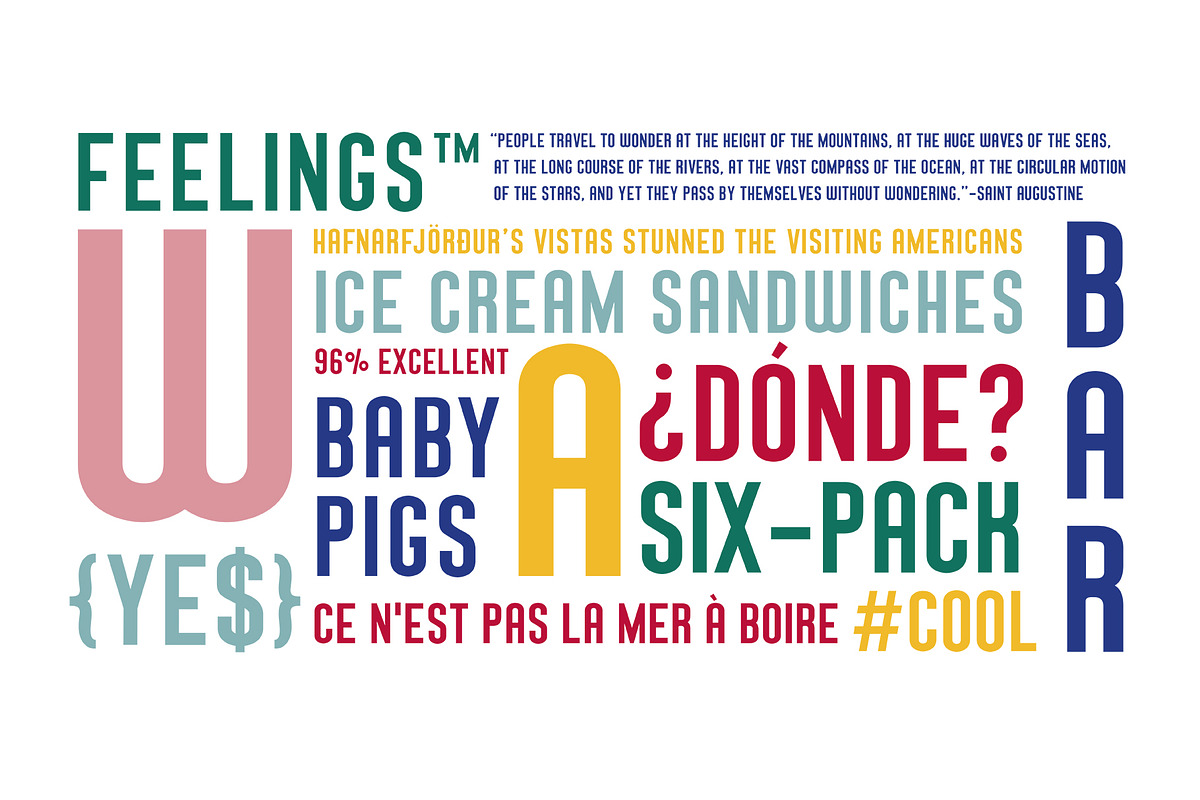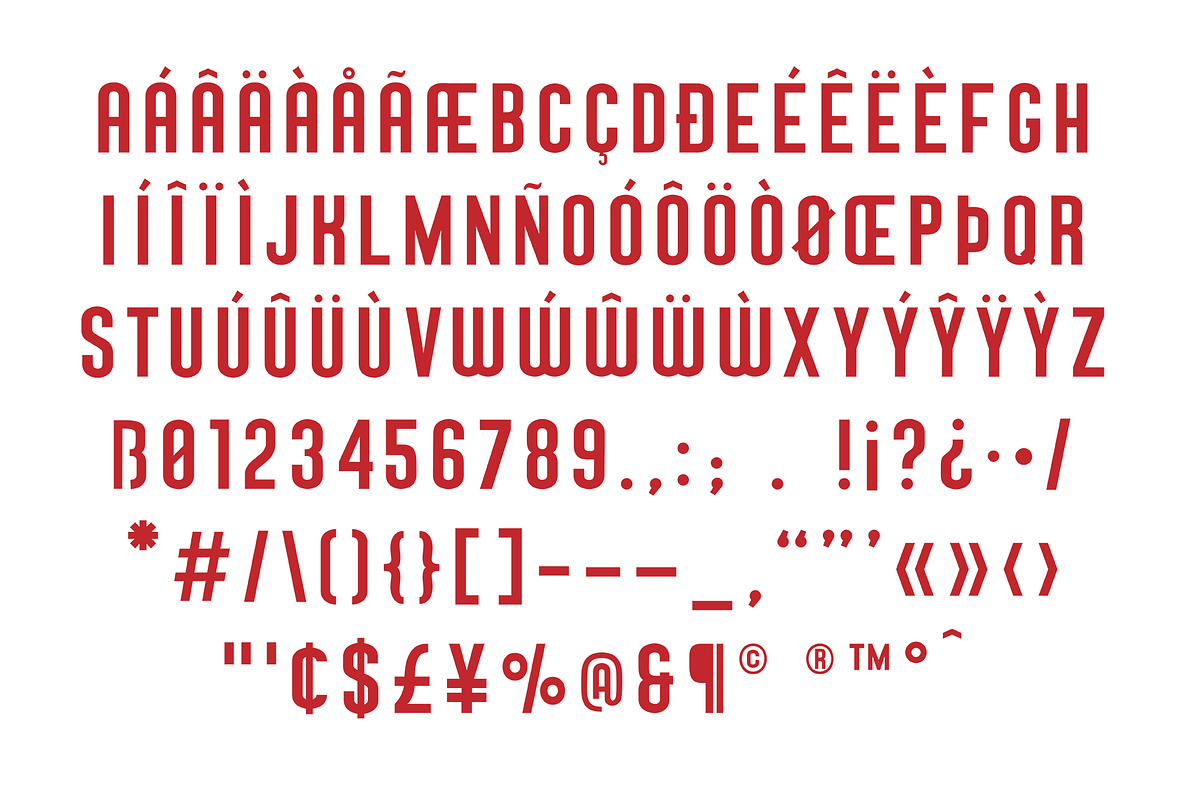
Laundromat Typeface
Inspired by vintage street typography, Laundromat is a bold, all-caps sans serif font made for displays. Its quirkier glyphs-- including A, W, and K-- give it a distinctive personality. Subtly retro yet suitable for all modern applications. Try it today!
• Includes most commonly used Western European glyphs